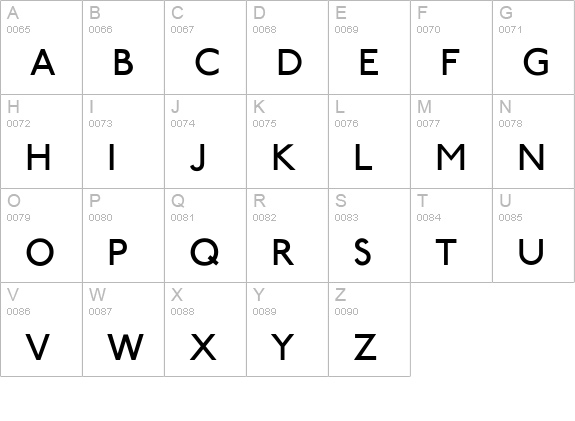
P22JohnstonUnderground Font Details
P22JohnstonUnderground font is a bold and eye-catching typeface that exudes a sense of urban chic and modernity. Inspired by the iconic Johnston typeface, which was originally designed for the London Underground, this font brings a touch of underground style to your designs. With its clean lines and geometric shapes, P22JohnstonUnderground font is perfect for a wide range of design projects. Whether you're creating posters, advertisements, or branding materials, this font will make your text stand out and grab attention. One of the best things about P22JohnstonUnderground font is that it is freely available to download at FontsMarket.com. This means that you can easily access this font and use it in your projects without any cost. It's a fantastic opportunity for designers, students, and anyone else who wants to add a touch of sophistication to their designs without breaking the bank. As you download and start using P22JohnstonUnderground font, you'll appreciate its versatility and flexibility. It works well in both large and small sizes, ensuring that your text remains clear and legible in any context. Its bold and distinctive appearance adds a modern and dynamic touch to your designs, making them visually striking. So, if you're looking for a free font that combines the timeless elegance of the Johnston typeface with a contemporary twist, look no further than P22JohnstonUnderground font. You can download it for free at FontsMarket.com and start elevating your designs with a touch of urban sophistication.